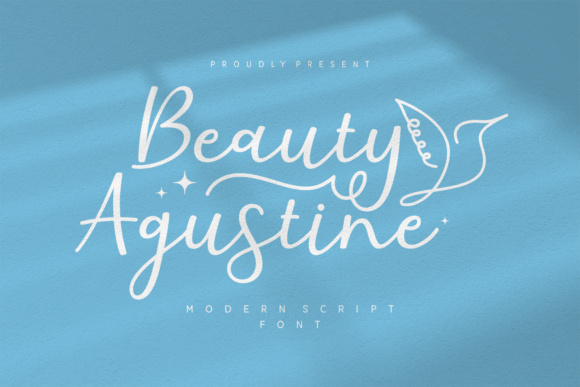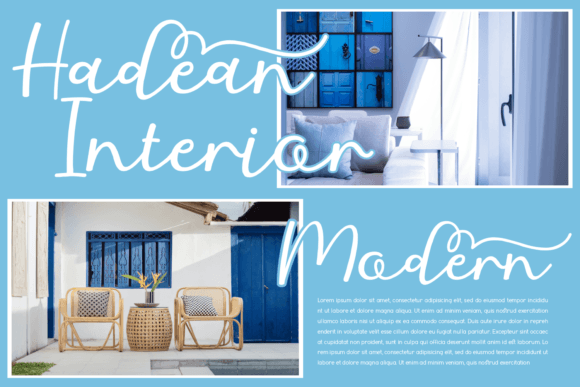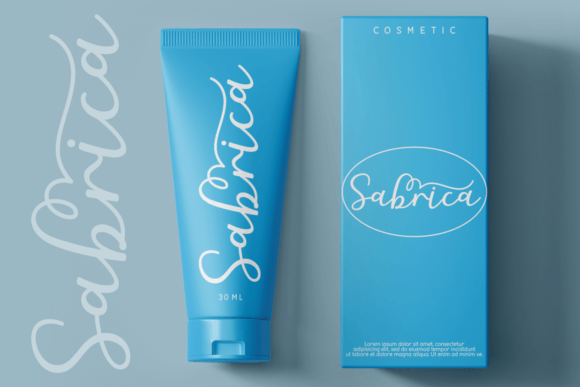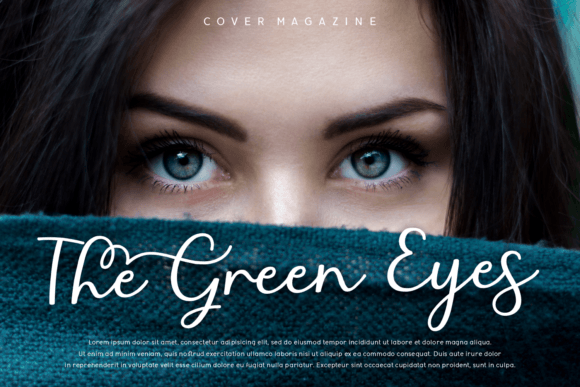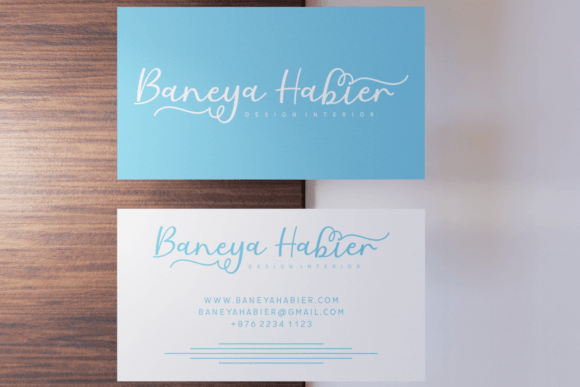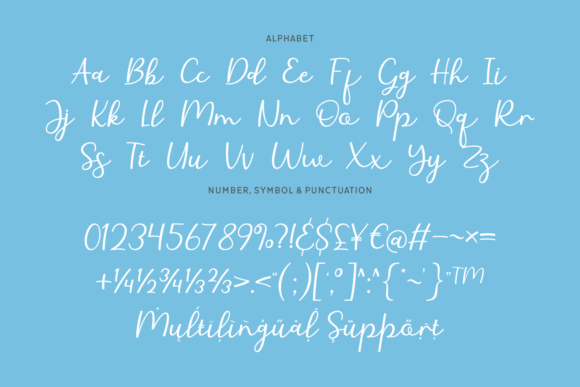
About Beauty Agustine Font
“Beauty Agustine” is a stylish and graceful script font that adds a touch of charm and elegance to your typography designs. With its captivating calligraphic style, this font allows you to create outstanding and visually appealing compositions. Whether you’re working on invitations, product labels, greeting cards, inspirational quotes, decorative elements, or a wide range of other design projects, “Beauty Agustine” is a font that truly shines.
The beauty of “Beauty Agustine” lies in its ability to convey a sense of style and grace through its gracefully flowing characters. The font’s letters possess a charming and refined quality that adds character and sophistication to your designs. “Beauty Agustine” is a font that effortlessly elevates the visual appeal of your projects, making them stand out with elegance.
One of the standout features of “Beauty Agustine” is its PUA encoding, which provides easy access to all the glyphs and swashes. This feature empowers you to explore and experiment with various design elements, giving you the flexibility to customize your compositions and create unique and captivating typography.
The versatility of “Beauty Agustine” ensures that it can be effectively used for a wide spectrum of applications. Whether you’re creating invitations that leave a lasting impression, designing product labels that exude class, infusing your cards with timeless elegance, adding inspirational quotes with a touch of refinement, embellishing decorations with style, or embarking on any creative endeavor that demands a graceful and charming script font, “Beauty Agustine” is your trusted choice.
Incorporating “Beauty Agustine” into your design projects will likely result in outcomes that are not only stylish but also full of grace and charm. Its beautifully crafted characters and refined form make it an excellent choice for creating designs that resonate with elegance and sophistication. Embrace the style and grace of “Beauty Agustine” in your next project, and watch as it enhances your typography and overall design, making them truly captivating and unforgettable.